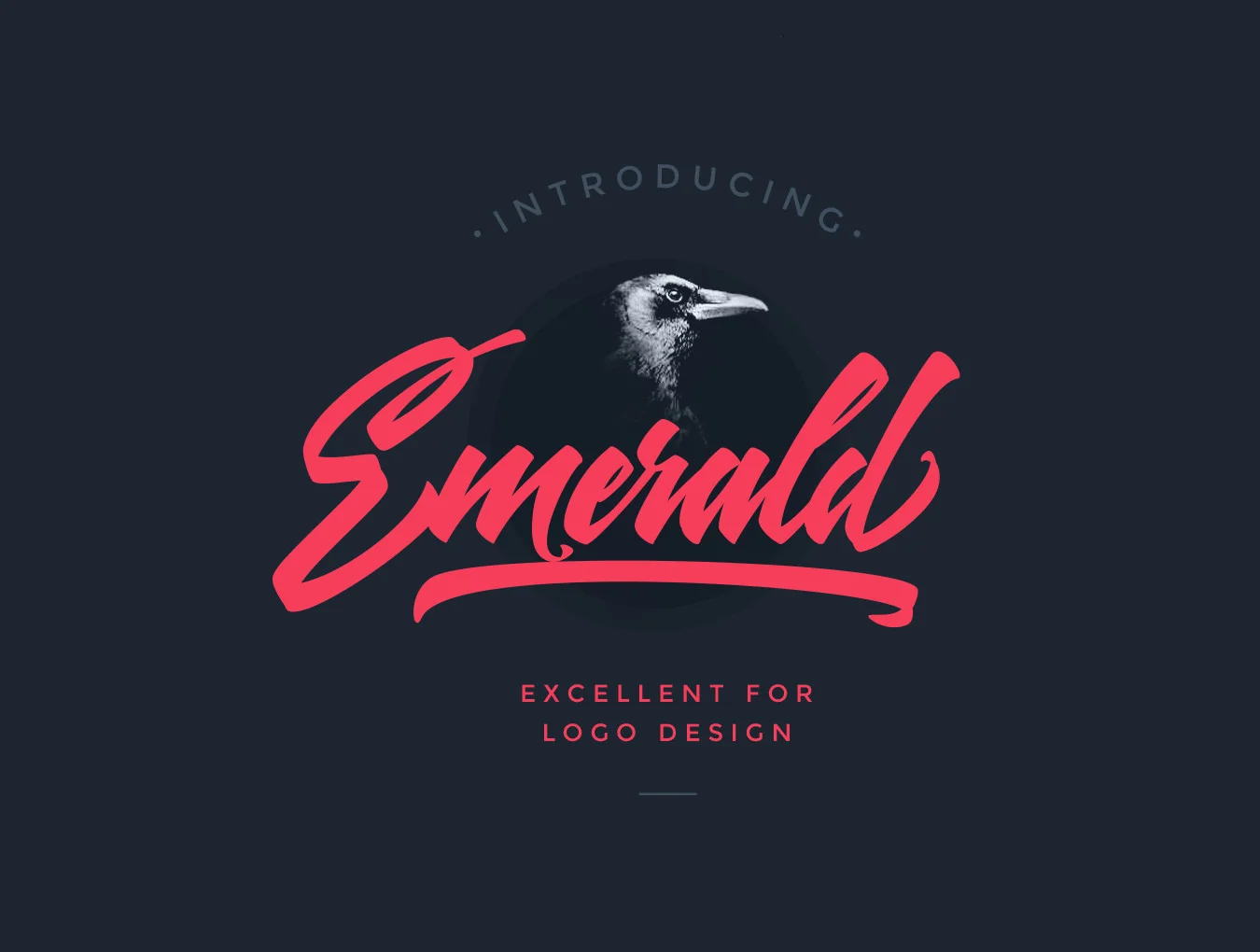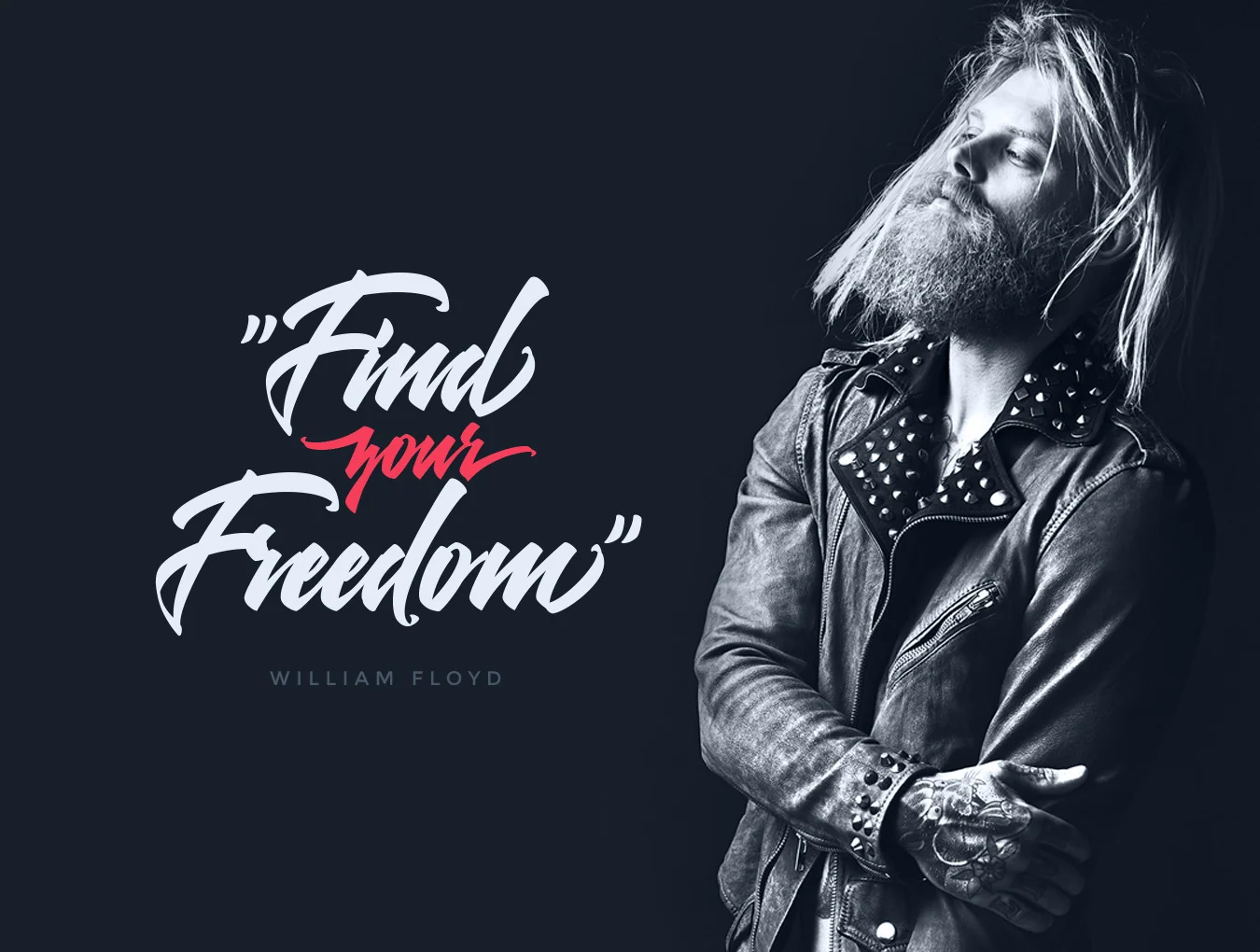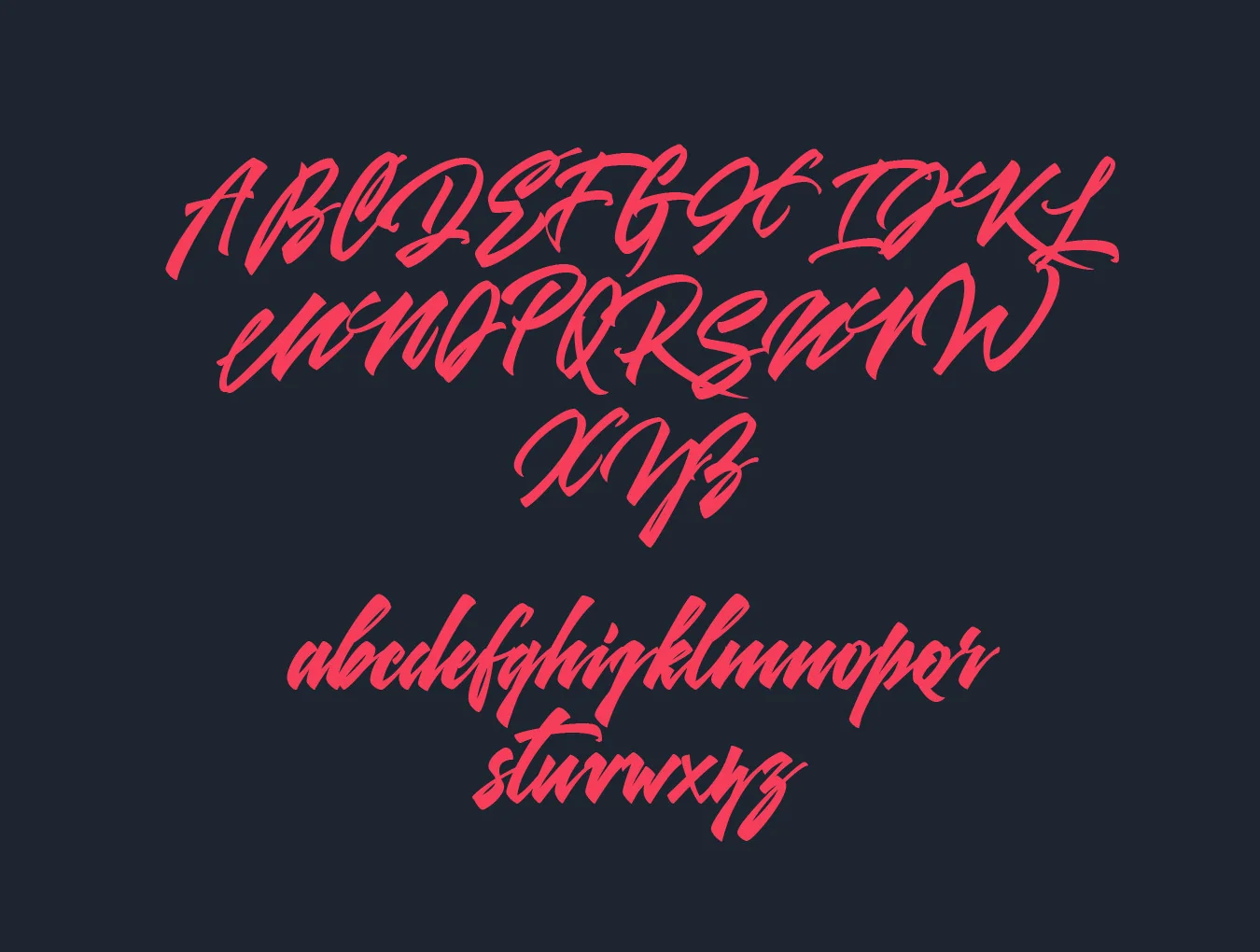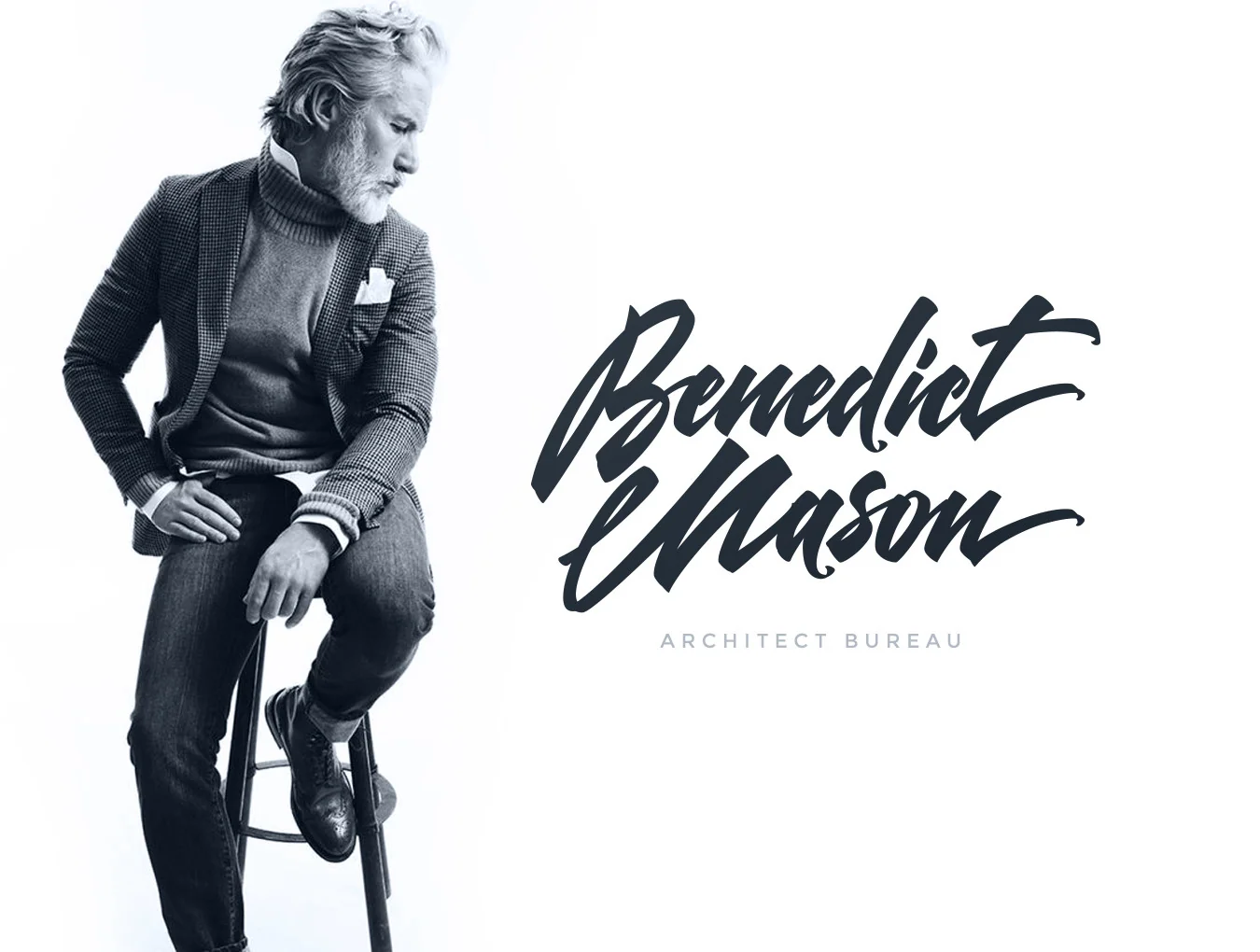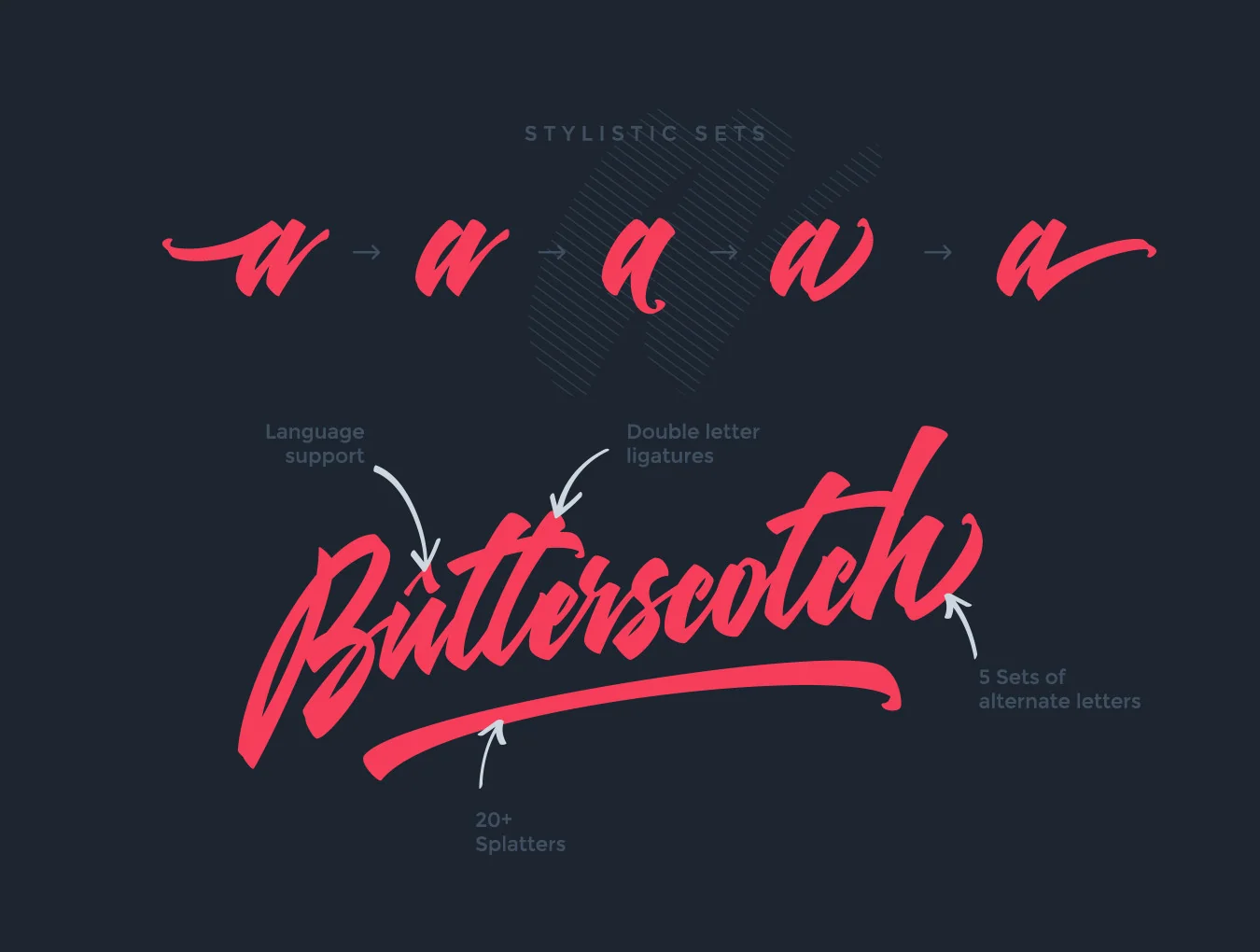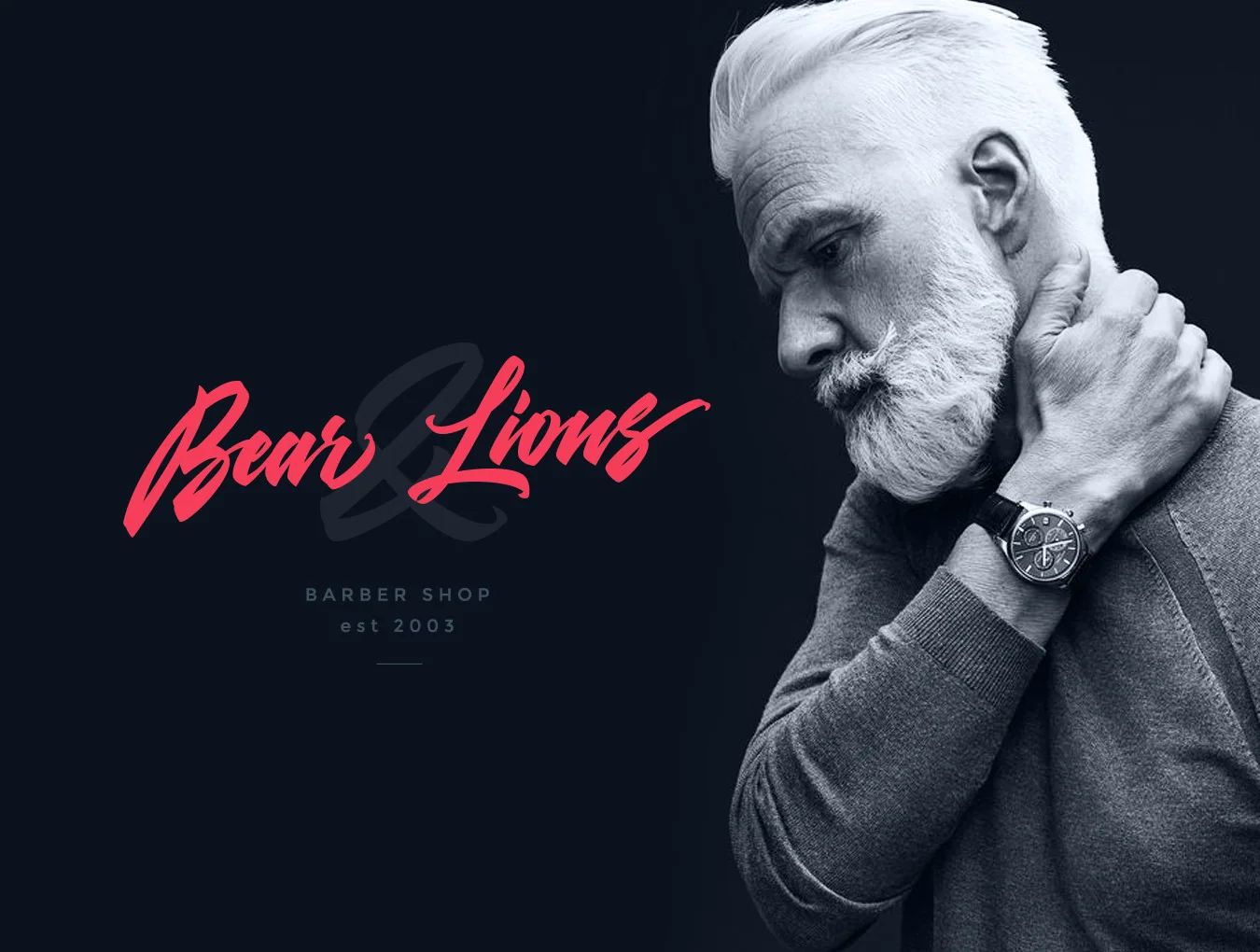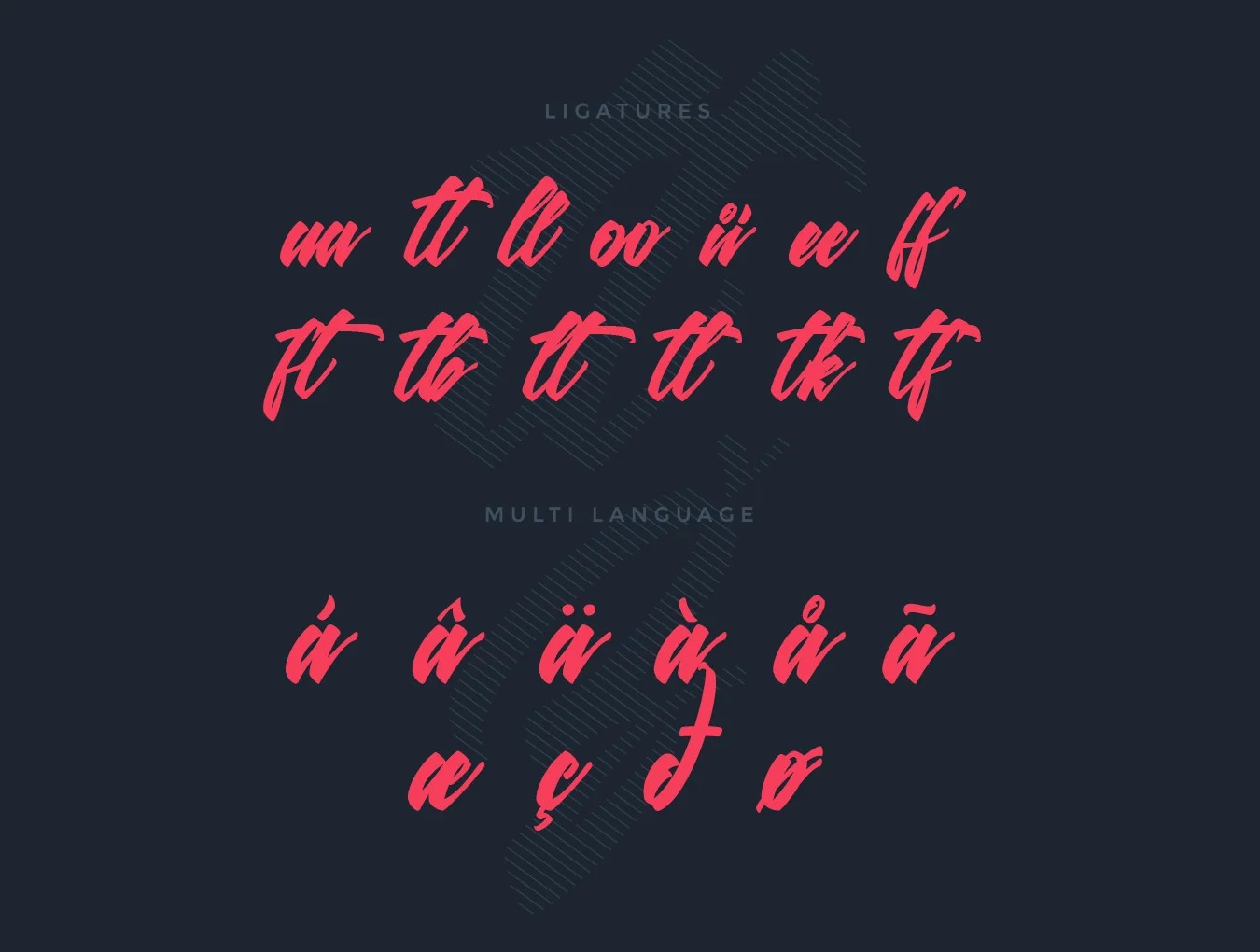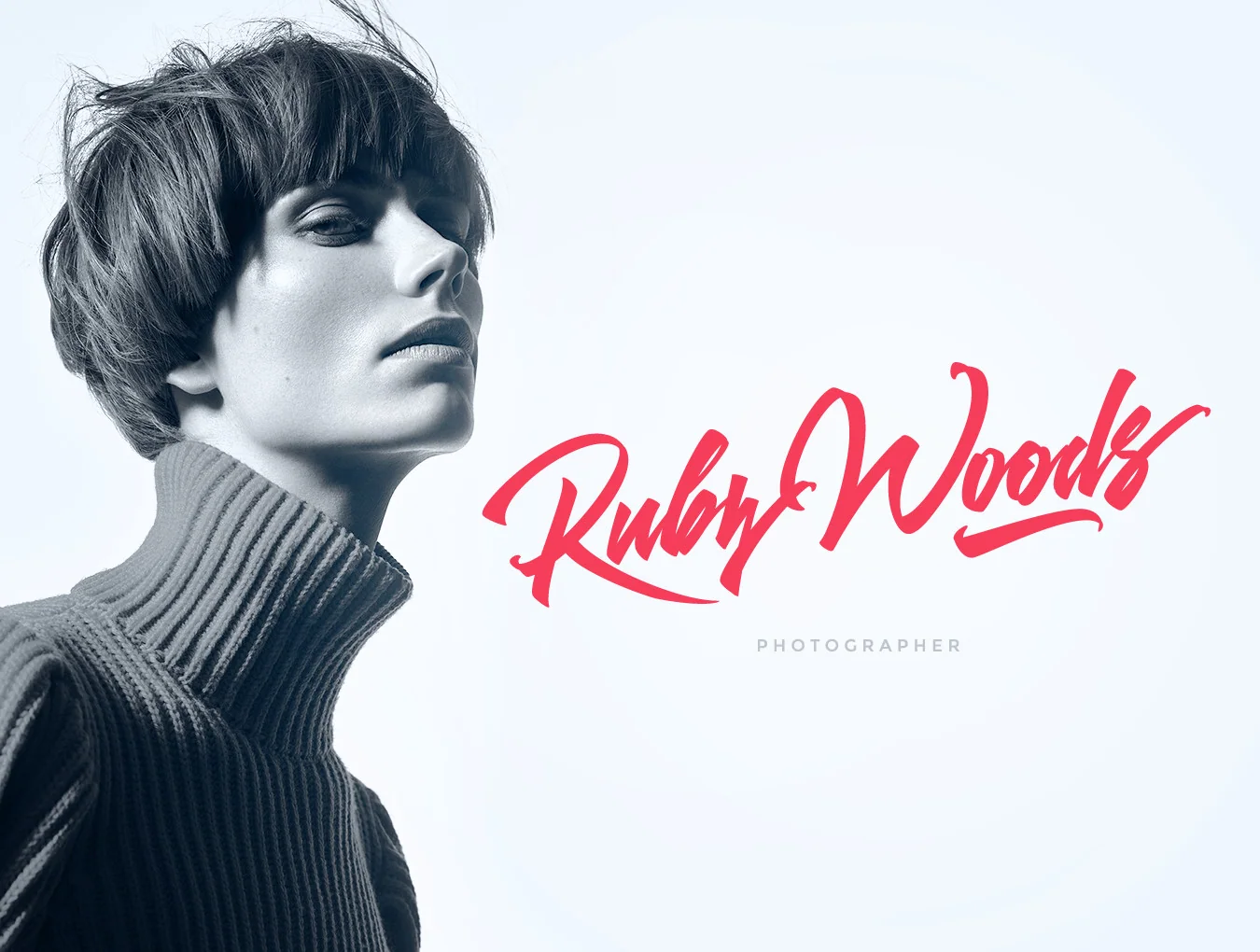
Emerald Script Font
Superb script-style typeface for creating logos
Capital and small letterforms
Emerald is a typeface set made for logo work. Pair the regular style with alternate characters to give every word a distinct look, then use the Splatters font for a tagline. Includes Emerald Normal OTF/TTF, Emerald Splatters OTF/TTF, and Emerald Normal webfonts in WOFF/WOFF2.